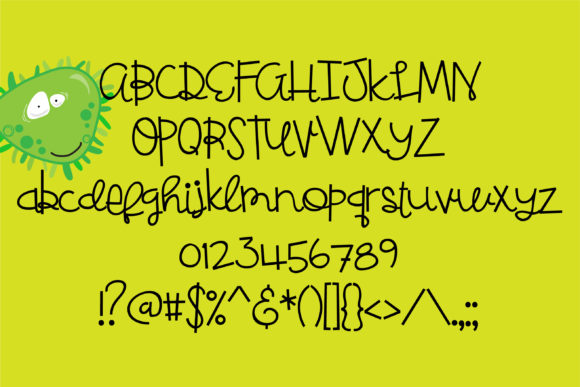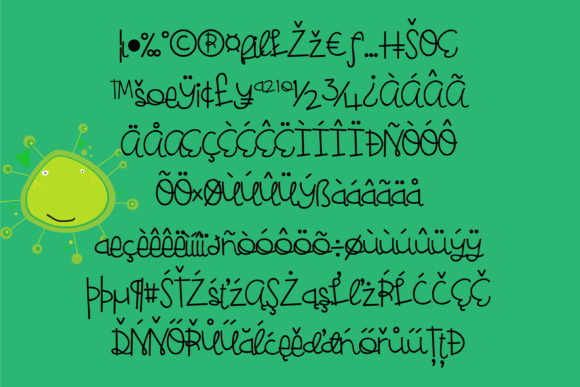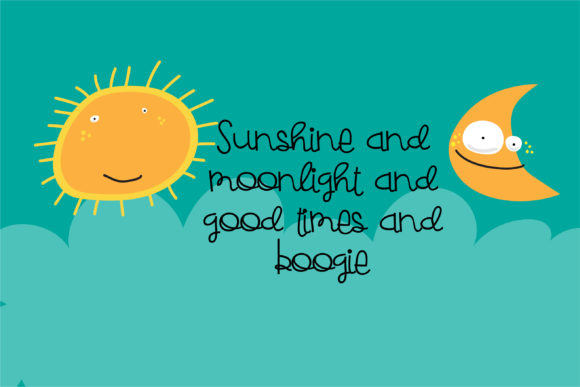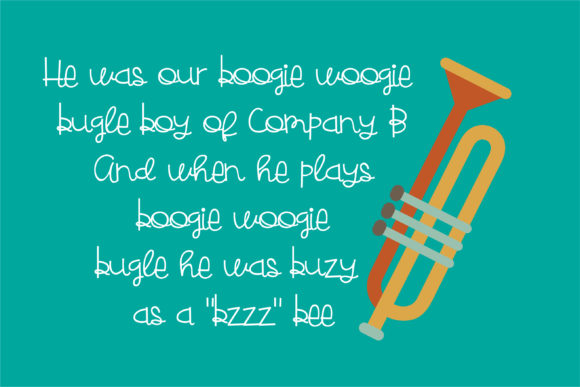
Discover the Whimsy of Boogiescript Font
As designers, we’ve all been there – staring at a blank canvas, waiting for the perfect font to bring our vision to life. It’s a moment of pure creative excitement, and for many of us, it’s where the magic happens. For those who crave a font that’s as playful as it is professional, look no further than the charming Boogiescript Font.
This casual, hand-crafted quasi-script boasts stiffly upright lettering and a whimsical feel that’s sure to capture the hearts of designers everywhere. Whether you’re creating a brand identity or a whimsical illustration, the Boogiescript Font is the perfect companion for your creative endeavors. Its versatility and unique charm make it a valuable addition to any designer’s toolkit.
Boogiescript Font Key Features
- Font Family: Boogiescript comes in two font families – Regular and Bold.
- Character Count: Boogiescript contains 256 characters, including uppercase and lowercase letters, numbers, punctuation, and special characters.
- Unique Characteristic: Boogiescript features a unique blend of modern and vintage design elements, making it perfect for creative and artistic projects.
Boogiescript Font Review
I recently had the chance to work with the Boogiescript font, and overall, I’m quite pleased with its performance. Here are a few things that work well: ✨
- Unique Style**: Boogiescript has a distinctive and quirky style that can add a lot of personality to a design.
- Good Readability**: The font is legible, even at smaller sizes, making it suitable for a wide range of applications.
- Customization Options**: Boogiescript comes with various weight options and ligatures, allowing designers to fine-tune the font to their specific needs.
- Limited Language Support**: Boogiescript may not support all languages or character sets, which could be a concern for global or multilingual projects.
- May Not Be Suitable for Body Text**: While Boogiescript works well for headlines and titles, it may not be the best choice for large blocks of body text.
Overall, I think Boogiescript is a solid addition to any designer’s toolkit. While it may have some limitations, its unique style and customization options make it a great choice for designers looking to add some personality to their work.
Getting the Most Out of Boogiescript Font
Boogiescript Font is ideal for creative projects, such as:
1. Infographics
2. Branding and logos
3. Social media graphics
4. Digital signage
Remember to experiment with different font sizes and styles to achieve the desired effect.
What is the recommended font size for optimal readability with Boogiescript?
The recommended font size for optimal readability with Boogiescript is between 12-14 points. This is due to the font’s x-height and line spacing, which are designed to provide clear and legible text at these sizes.
Can I customize the font’s ligatures and alternates?
Yes, Boogiescript includes a range of customizable ligatures and alternates that can be accessed through the font’s OpenType features. This allows designers to fine-tune the font’s behavior and create unique typographic effects.